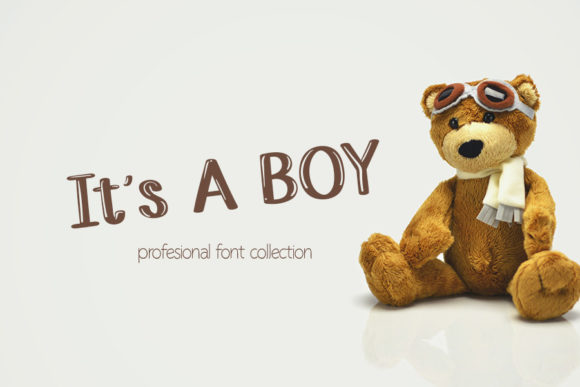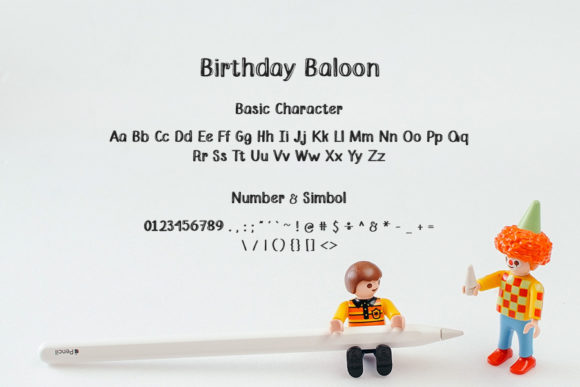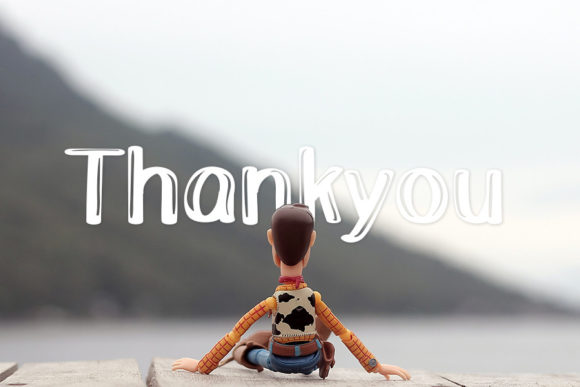
Introducing Birthday Baloon: The Ultimate Font for Fun and Playful Designs
Are you tired of using the same old fonts for your designs? Look no further! Birthday Baloon is a modern and playful display font that’s sure to add a touch of fun and uniqueness to your projects. This exciting new font is perfect for children-themed designs, especially when combined with bright colors.
The Birth of a Fun Font
Birthday Baloon is a carefully crafted font that’s designed to evoke the feeling of joy and celebration. Its playful and whimsical design makes it perfect for a variety of projects, from birthday invitations and party decorations to children’s book titles and nursery decor. With its modern and fresh approach, Birthday Baloon is sure to stand out from the crowd and make your designs shine.
What Makes Birthday Baloon Special?
So, what sets Birthday Baloon apart from other fonts? Here are just a few of its unique features:
• Playful Design: Birthday Baloon has a fun and playful design that’s sure to bring a smile to anyone’s face. Its bouncy and irregular shape makes it perfect for creating eye-catching headlines and titles.
• Modern and Fresh: This font has a modern and fresh approach that’s perfect for designers and crafters who want to create unique and stylish designs.
• Perfect for Kids: Birthday Baloon is specifically designed with children in mind. Its fun and playful design makes it perfect for kids’ party decorations, birthday invitations, and other children-themed projects.
• Works Well with Bright Colors: This font is designed to work perfectly with bright and bold colors, making it perfect for creating eye-catching designs that pop.
Using Birthday Baloon in Your Designs
So, how can you use Birthday Baloon in your designs? Here are a few ideas to get you started:
• Birthday Invitations: Create custom birthday invitations that will make the birthday boy or girl feel special. Use Birthday Baloon to add a playful touch to your designs.
• Party Decorations: Use Birthday Baloon to create fun and playful party decorations, such as banners, garlands, and signs.
• Children’s Book Titles: Add a touch of whimsy to your children’s book titles with Birthday Baloon. This font is perfect for creating eye-catching and engaging titles that kids will love.
• Nursery Decor: Use Birthday Baloon to create custom nursery decor, such as wall art and decals. This font is perfect for adding a playful touch to a child’s nursery.
Tips for Using Birthday Baloon Effectively
Here are a few tips for using Birthday Baloon effectively in your designs:
• Keep it Simple: While Birthday Baloon is a playful font, it’s still important to keep your designs simple and easy to read. Use the font sparingly and make sure it’s not too overwhelming.
• Experiment with Colors: Birthday Baloon works well with bright and bold colors, so don’t be afraid to experiment and find the perfect color combination for your design.
• Mix and Match: Don’t be afraid to mix and match Birthday Baloon with other fonts to create a unique and interesting design.
In conclusion, Birthday Baloon is a modern and playful display font that’s perfect for children-themed designs. Its fun and unique design makes it perfect for adding a touch of whimsy to your projects. With its modern and fresh approach, Birthday Baloon is sure to stand out from the crowd and make your designs shine. So why wait? Download Birthday Baloon today and start creating fun and playful designs that will delight kids and adults alike!